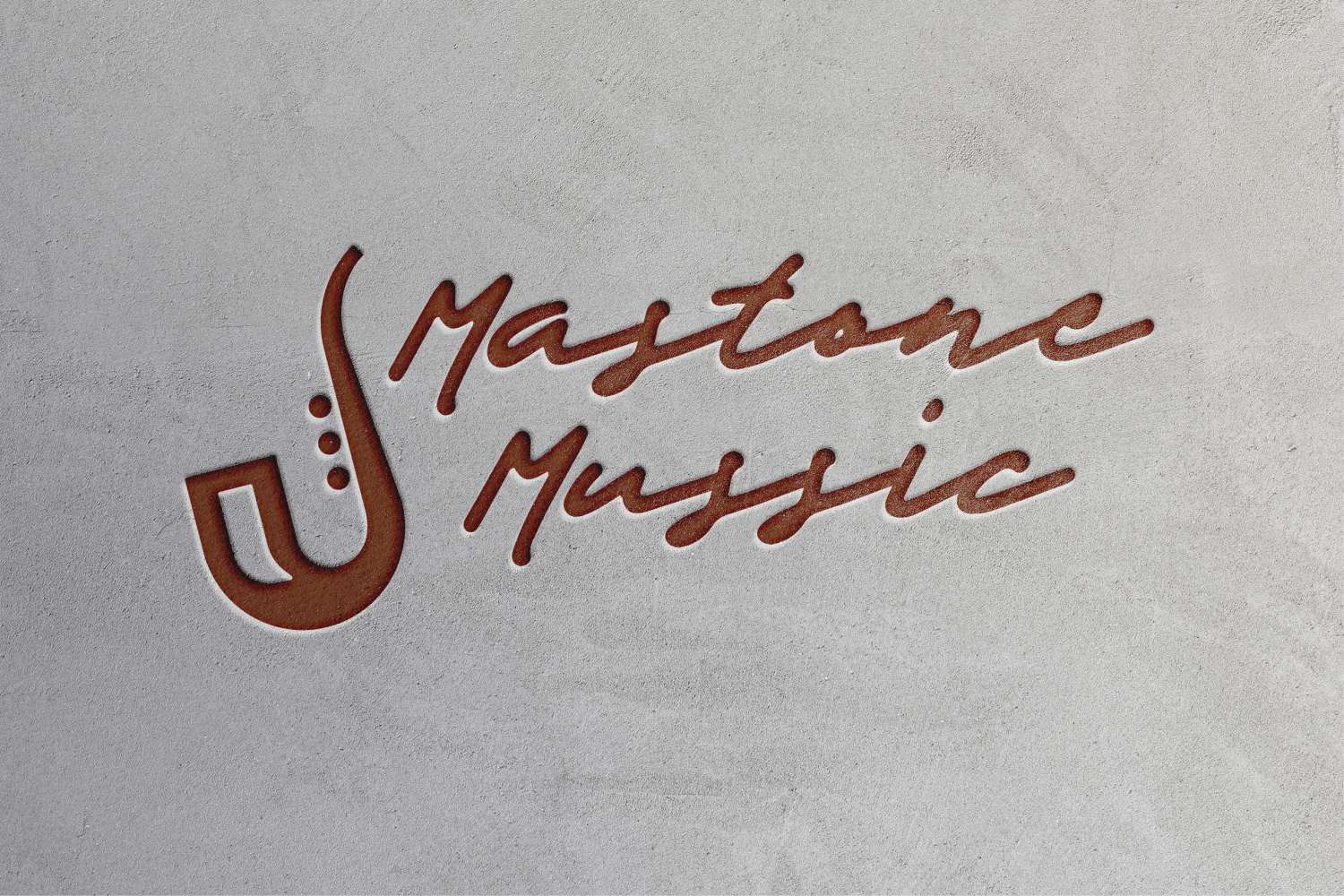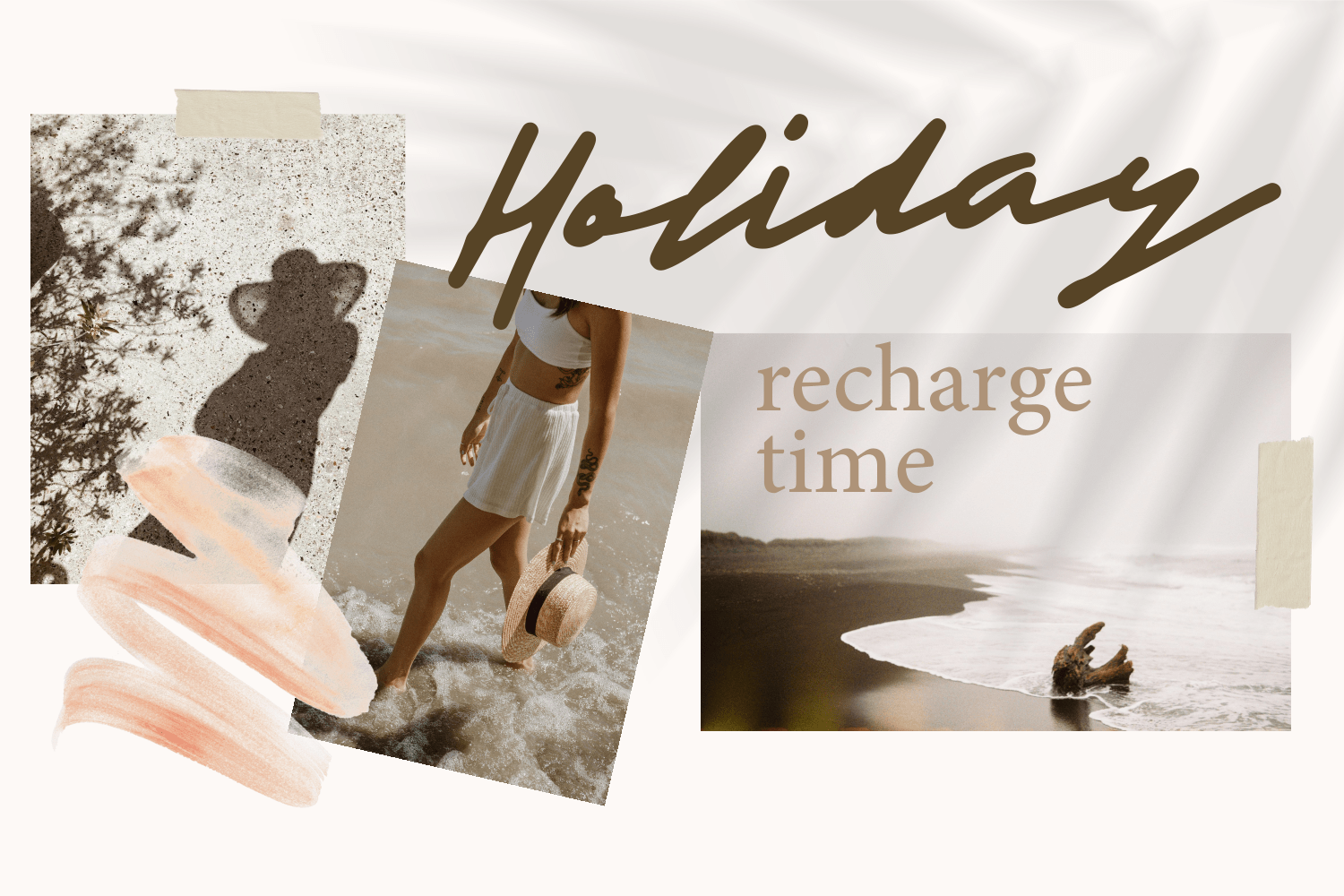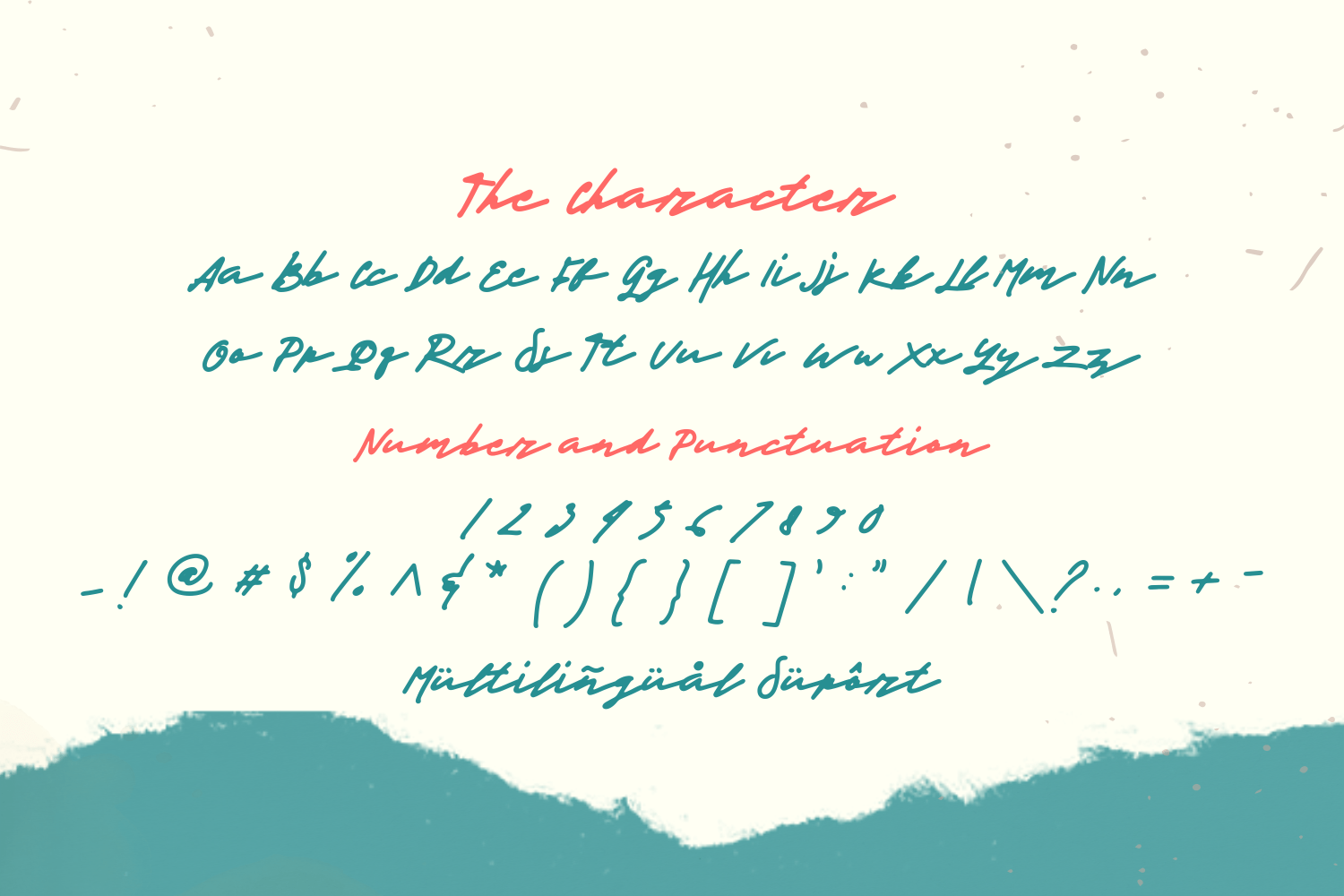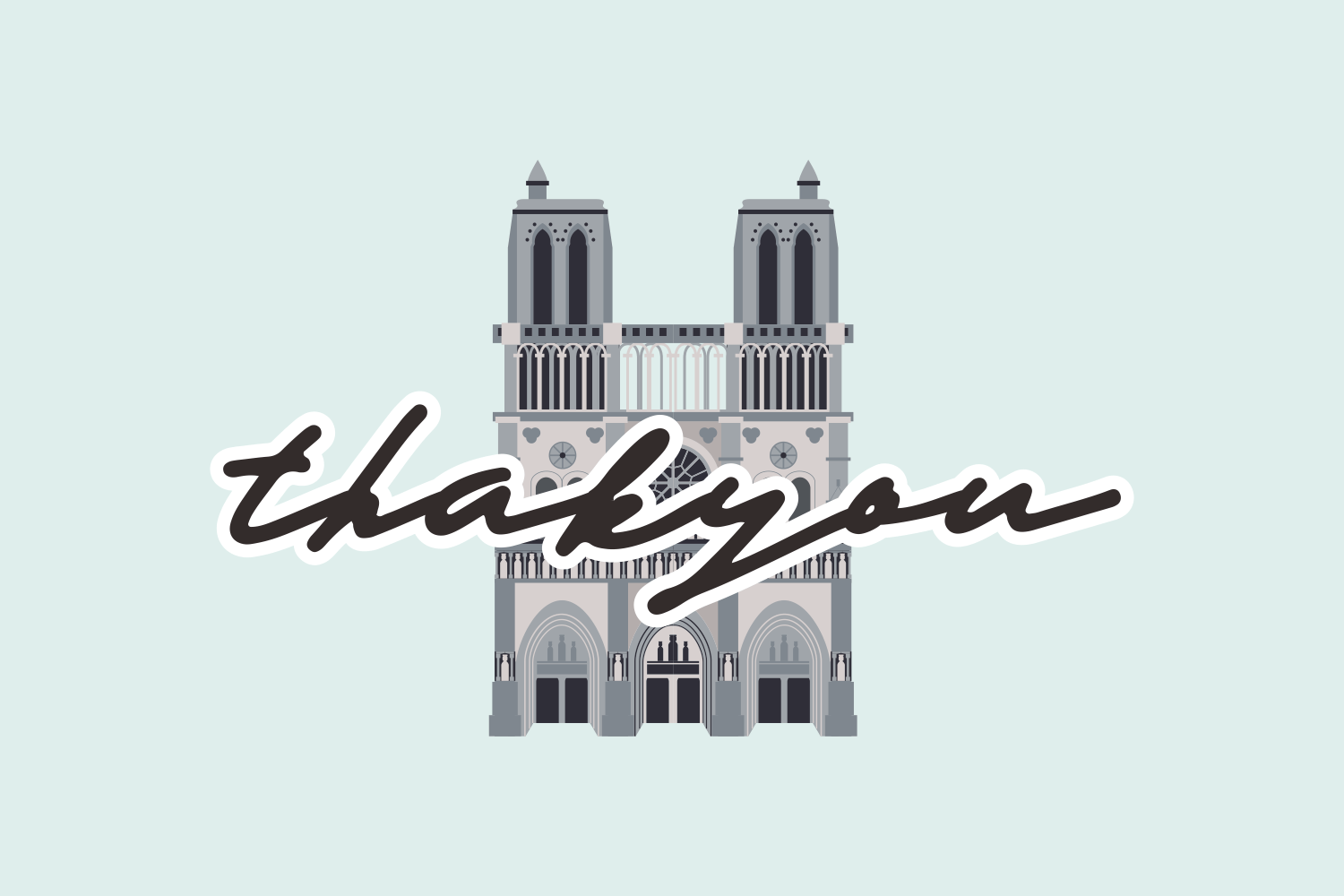
Raine Script Font is a chic handcrafted font, created to impress your audience and make your branding shine. Make your projects dance with this elegant and wonderful font. Use it for headings, logos, ads, printed quotes, packaging, and even your website or social media branding.